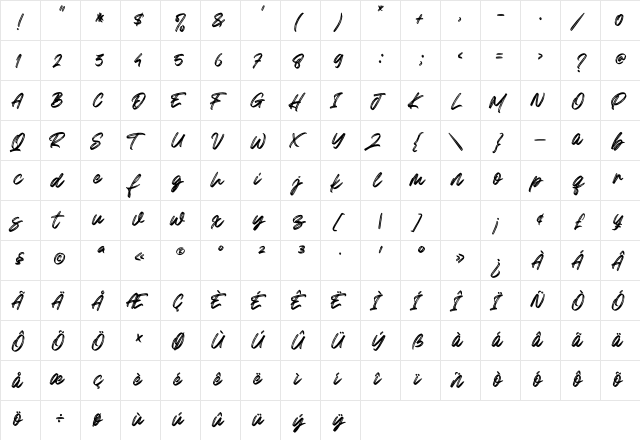
Greatest Richmond Regular
| Designer | Muh. Aswar by Azetype Studio |
Design Context for Greatest Richmond Typeface
Greatest Richmond is a composed and adaptable typeface that performs quietly and consistently across a wide range of design contexts.